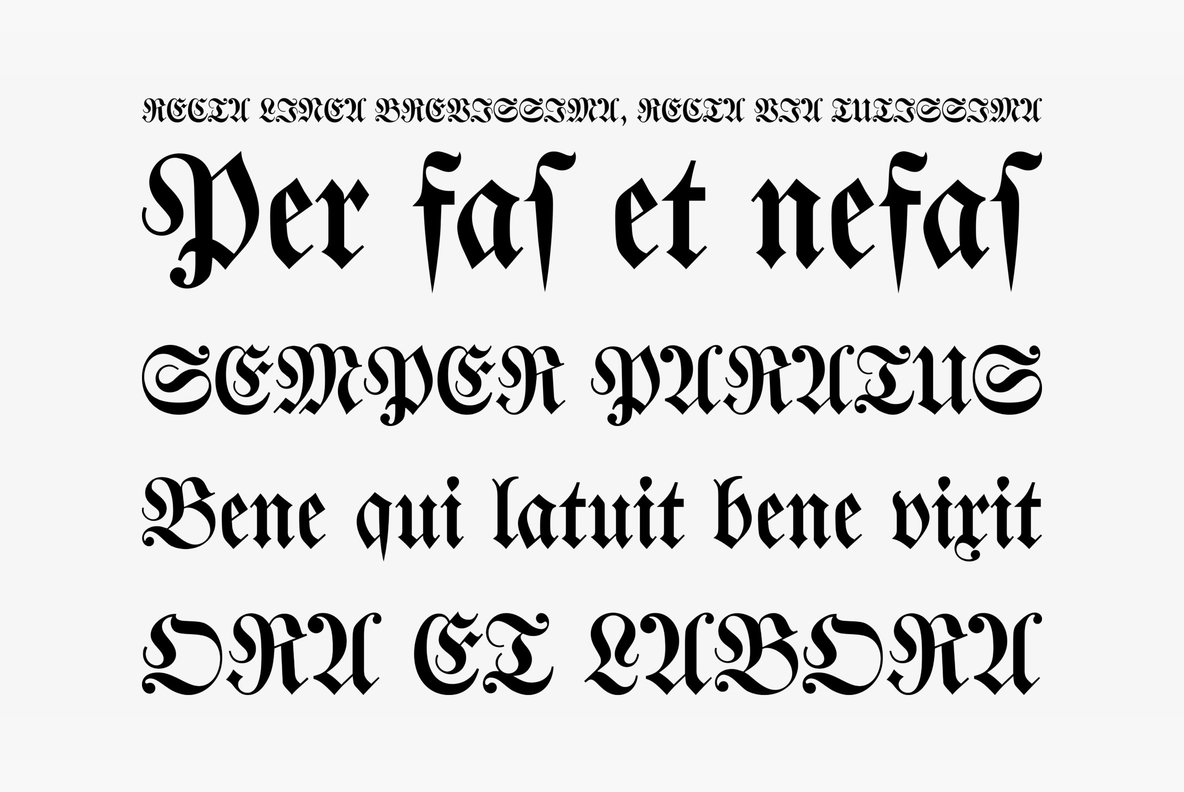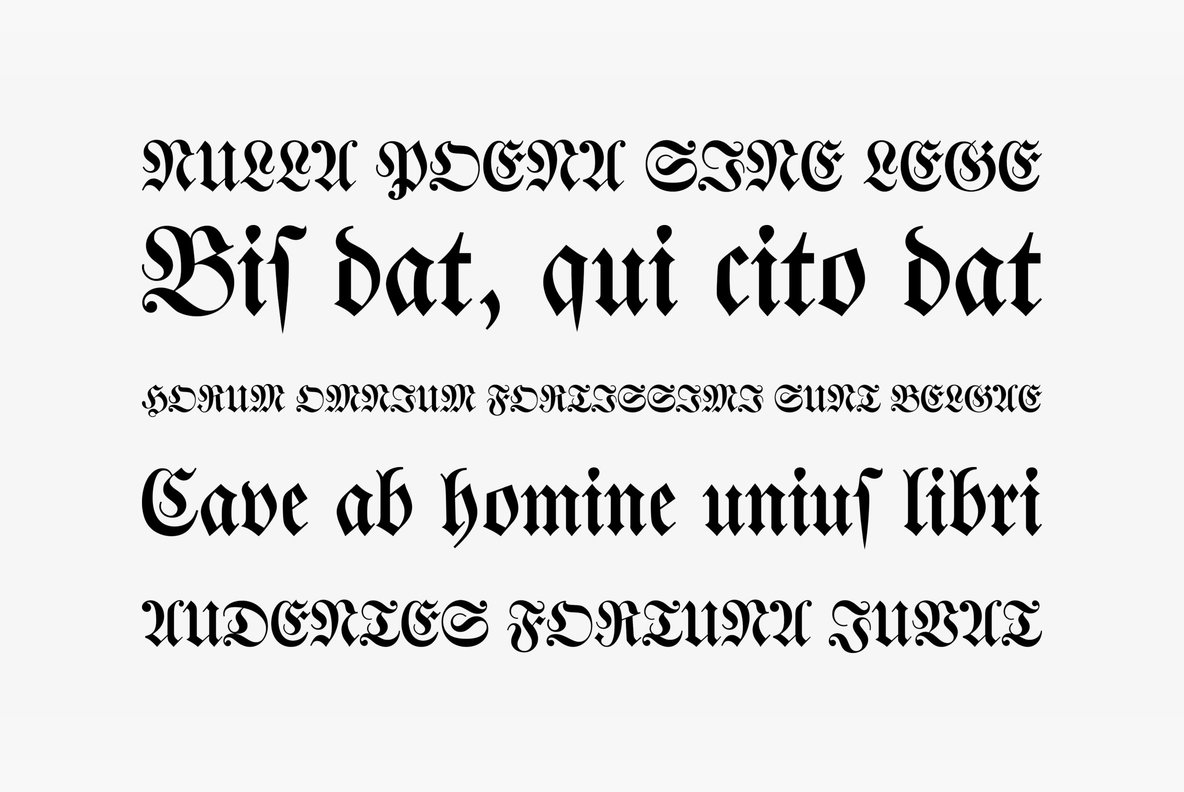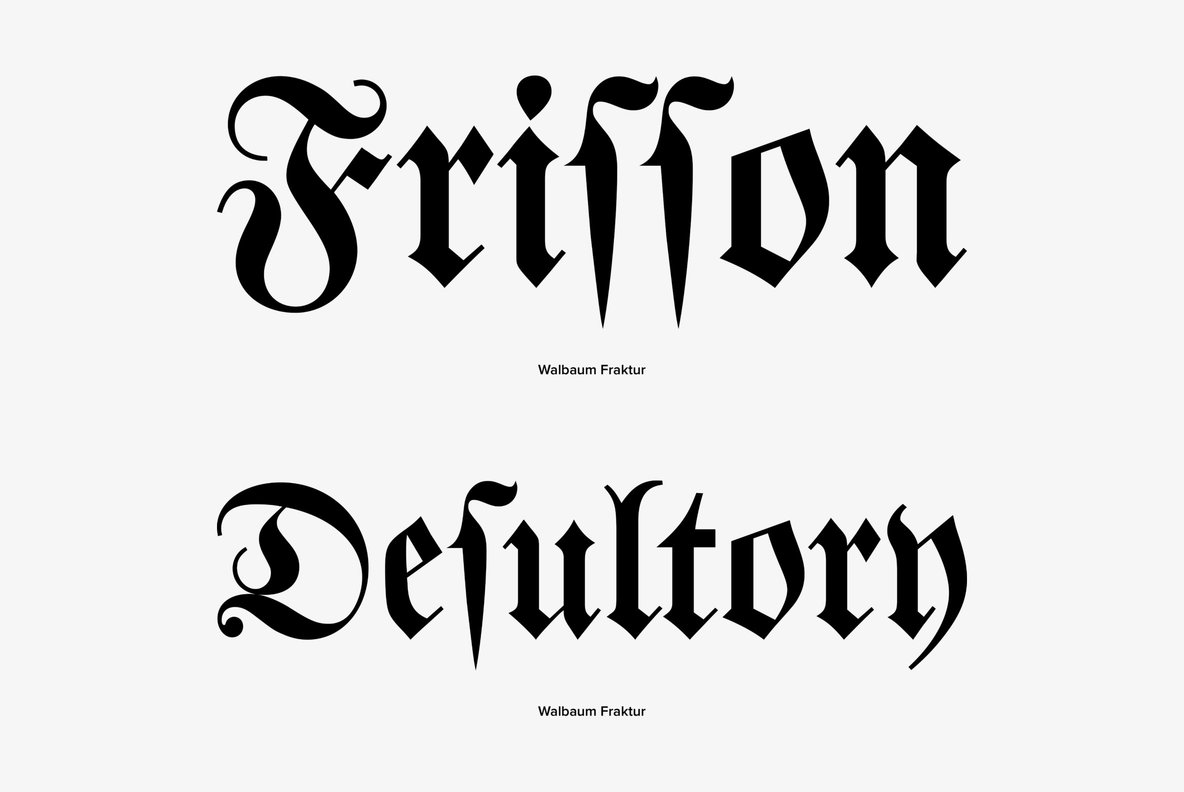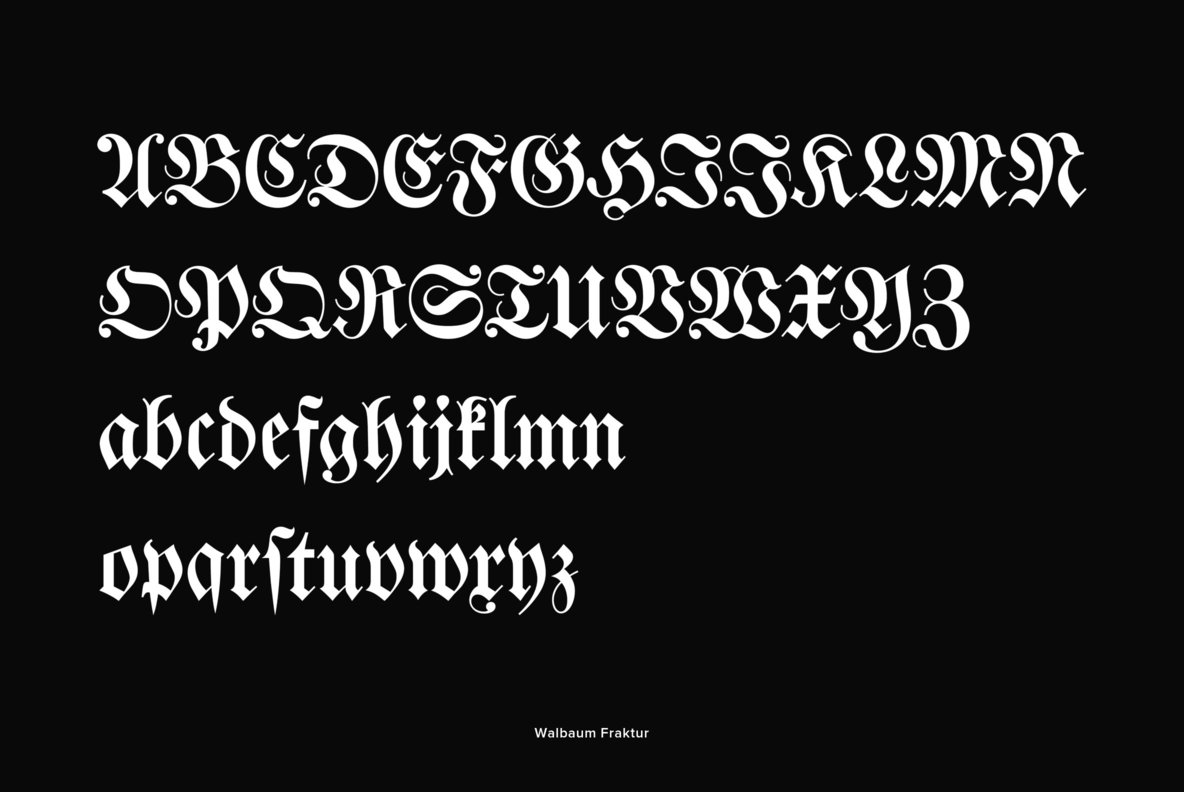
Originally designed by Justus Erich Walbaum in the 1800s, Walbaum Fraktur is a classic and strong blackletter type design. Walbaum Fraktur works great in headlines and other masculine like design settings.